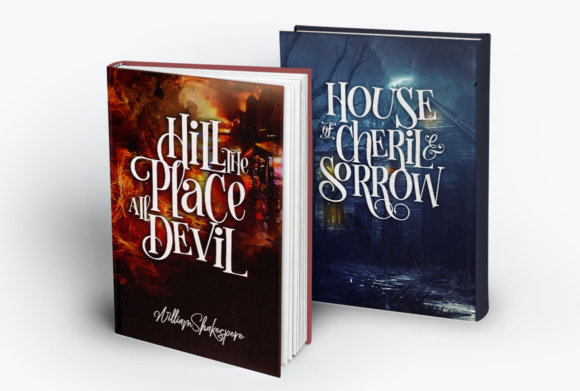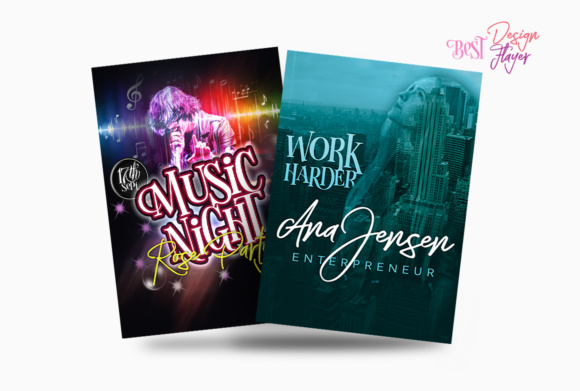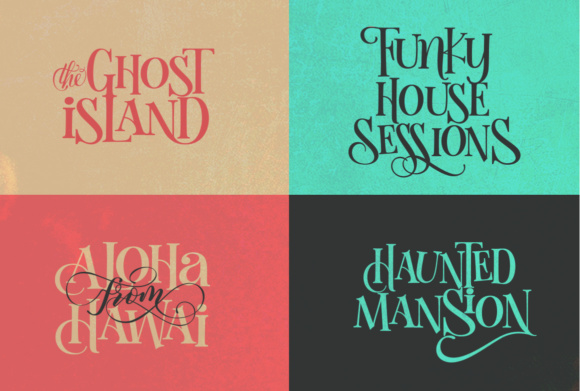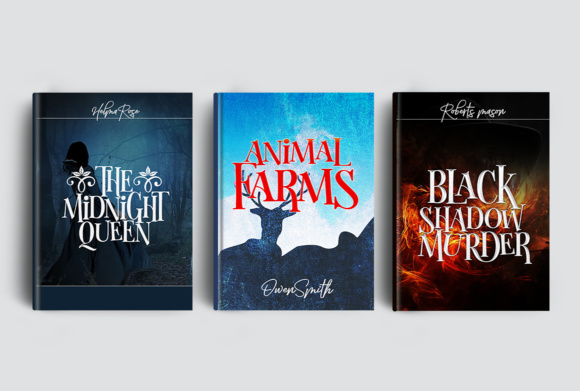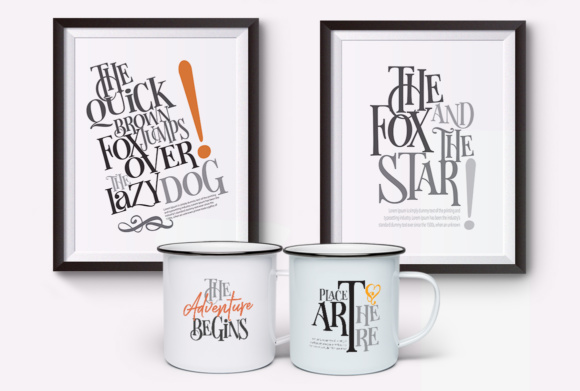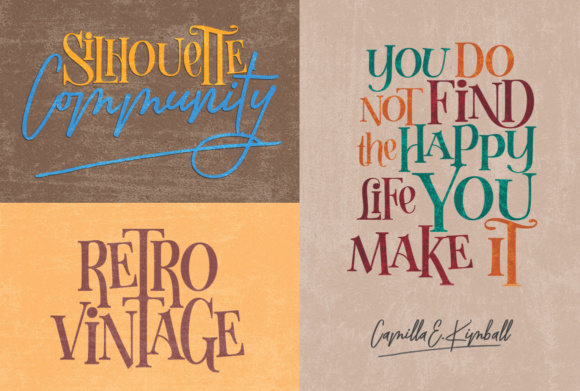
Introduction to Ocean Twelve Font
Ocean Twelve & Ocean Twelve Script are modern display and handwritten fonts inspired by vintage typography that’s usually shown on posters, books and CD covers.
The irregular height of the font clearly represents the feeling of a hand-drawn typeface .
Key Features of Ocean Twelve Font